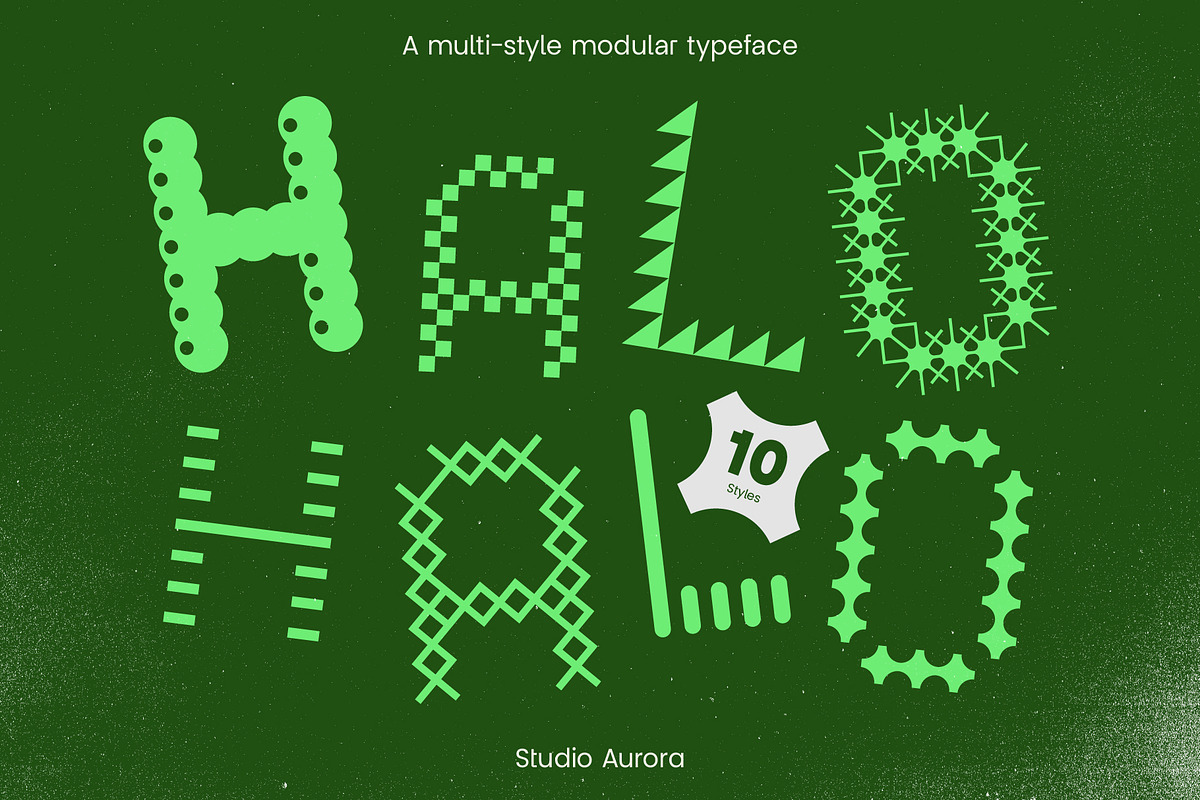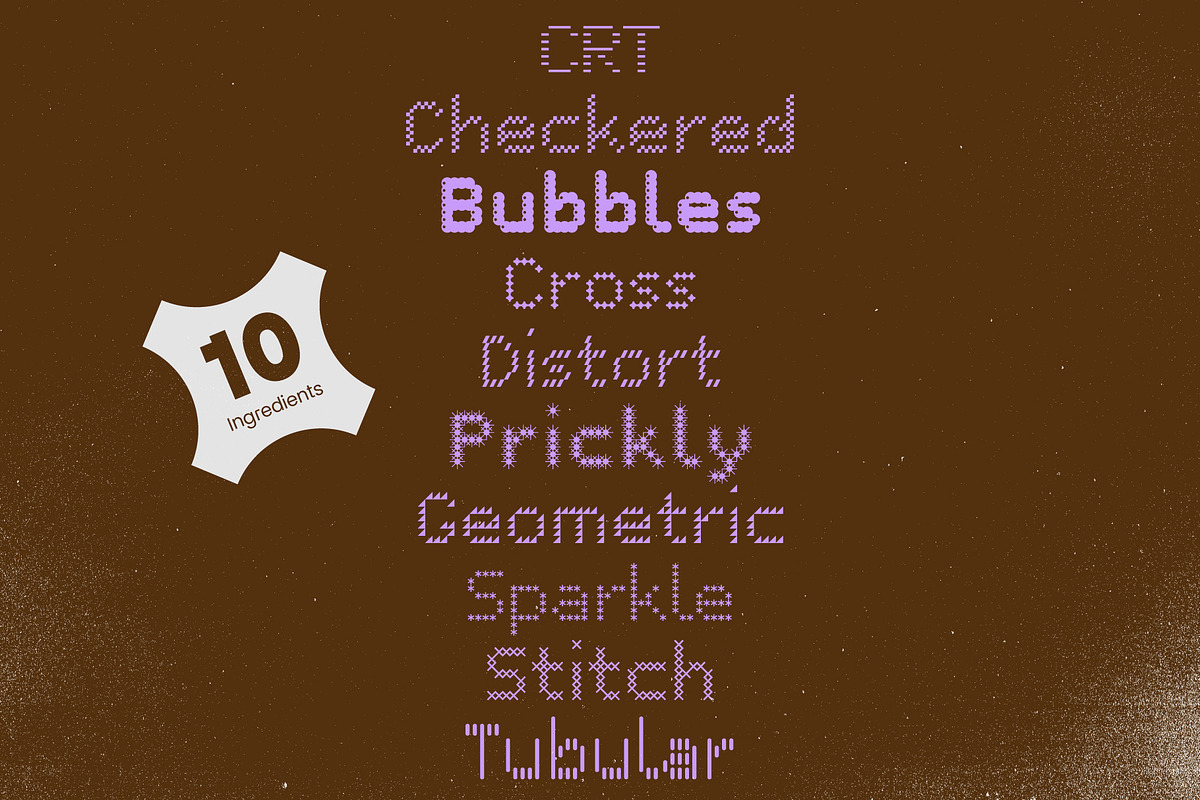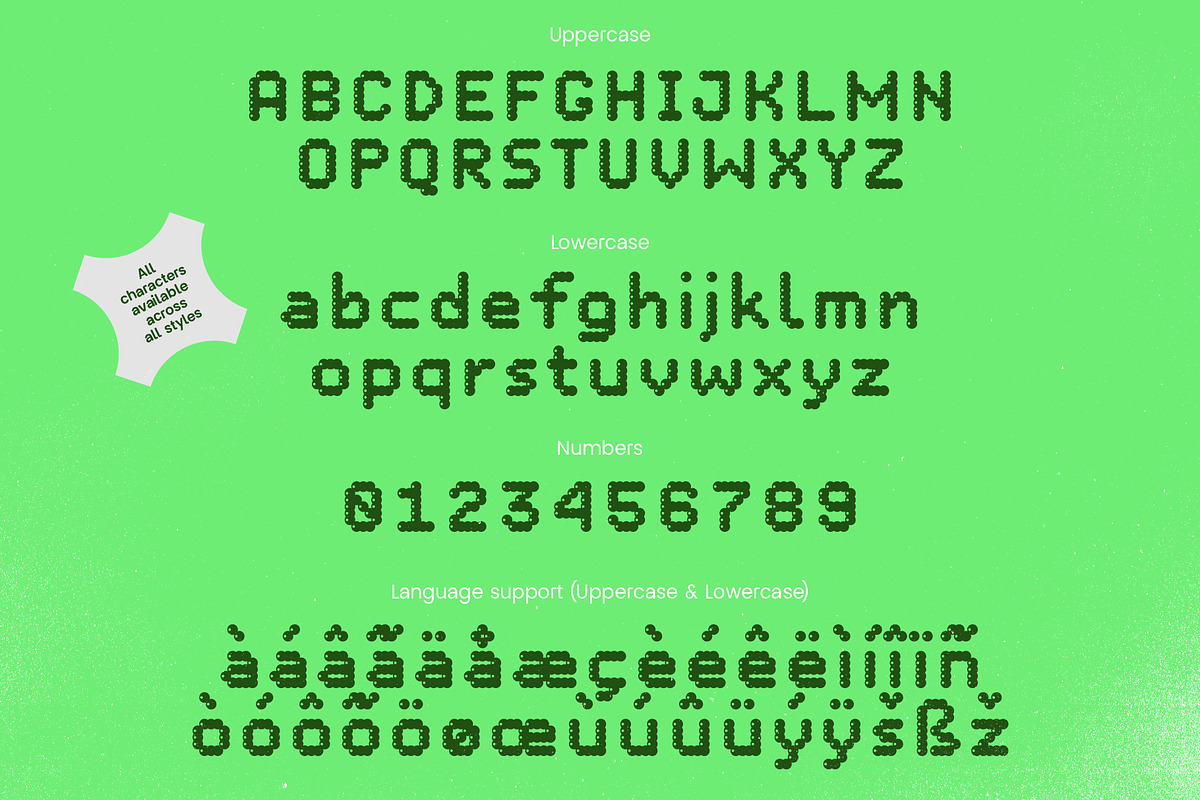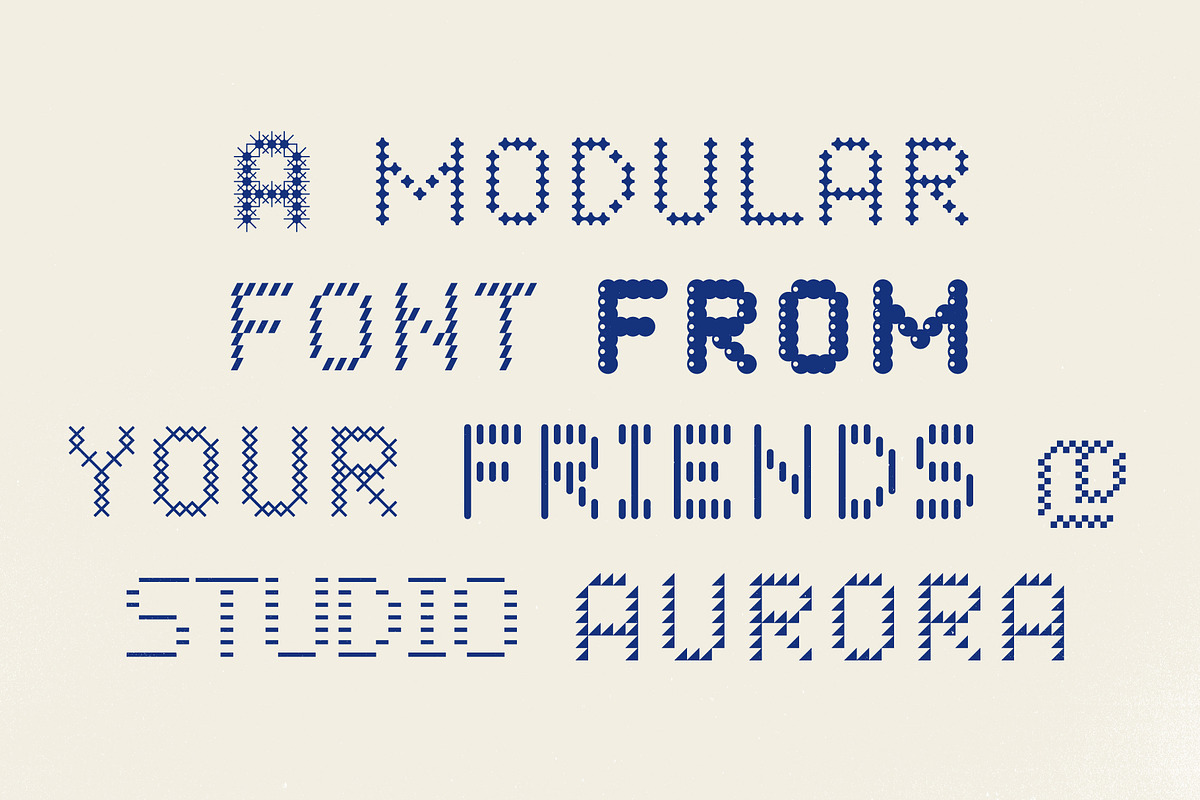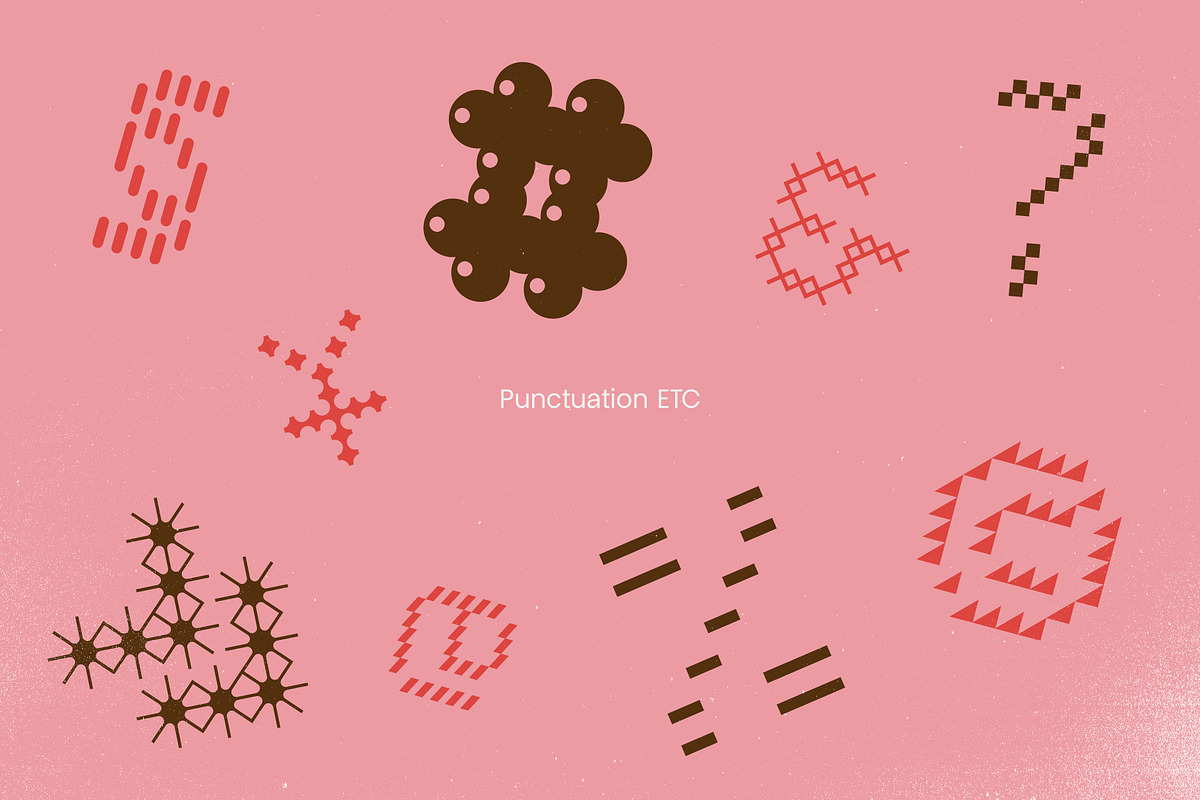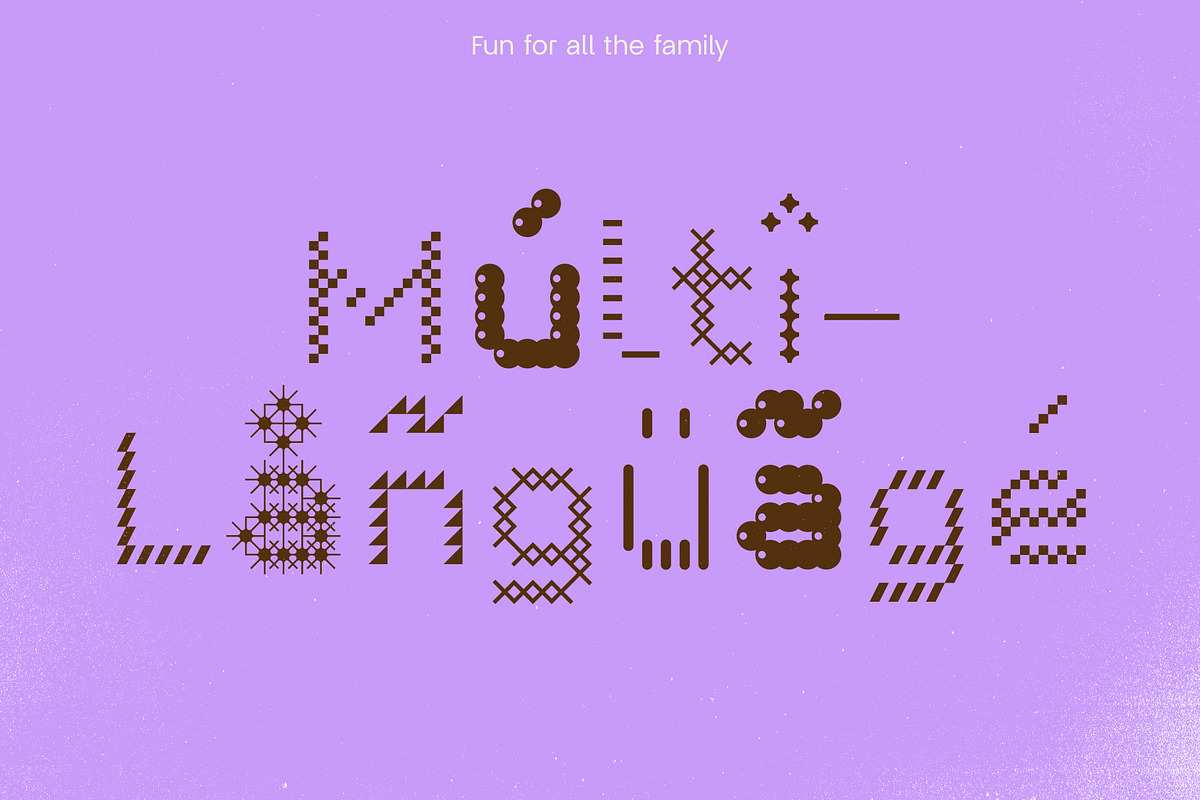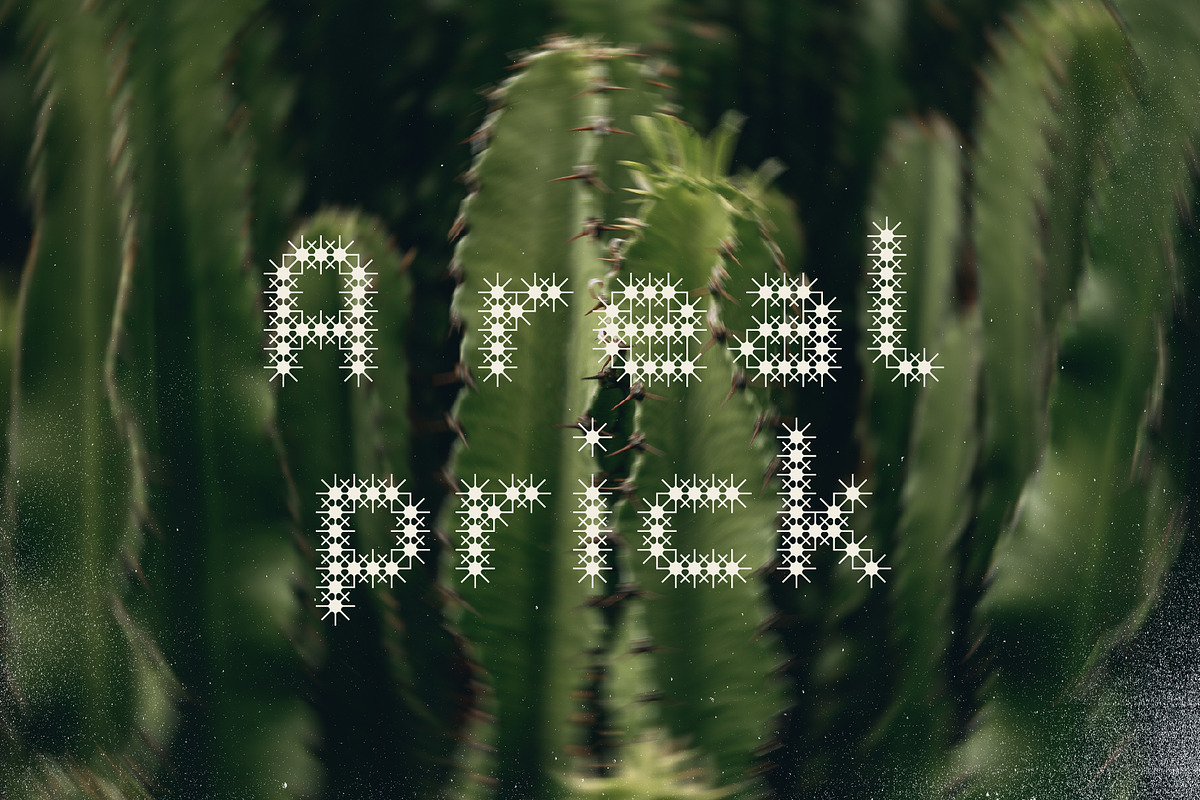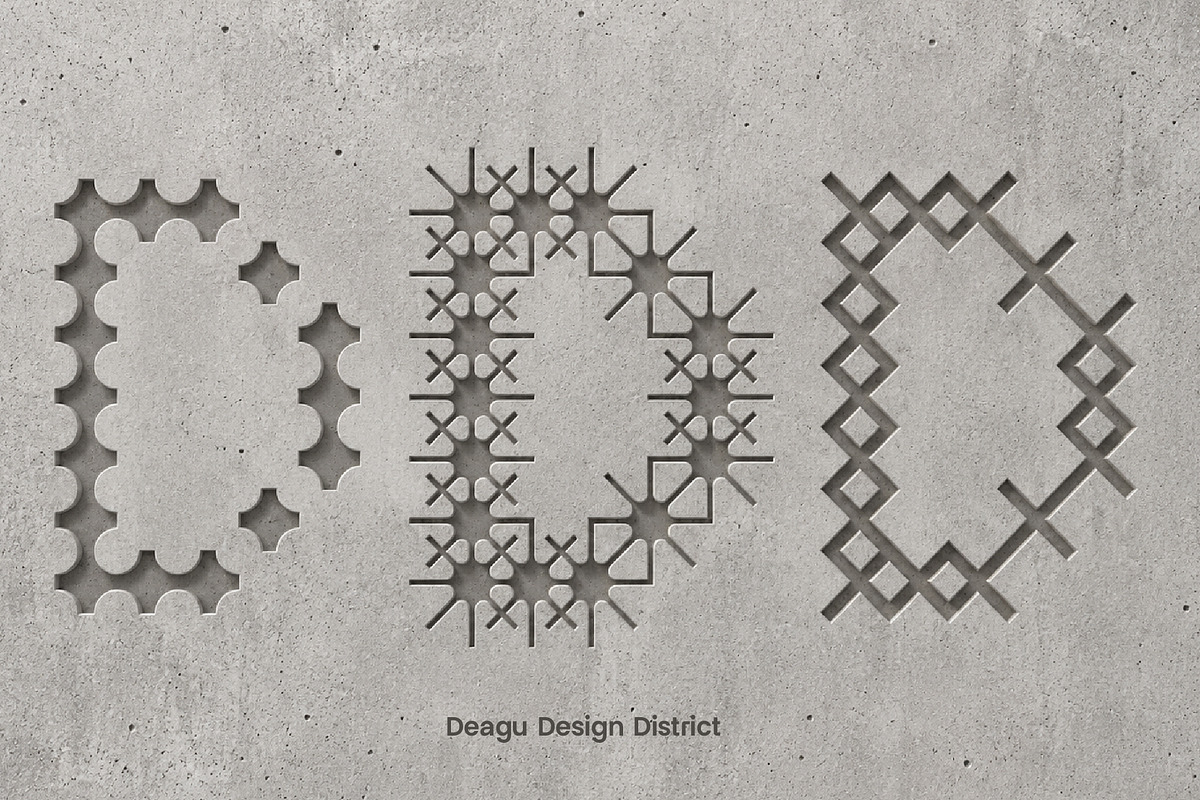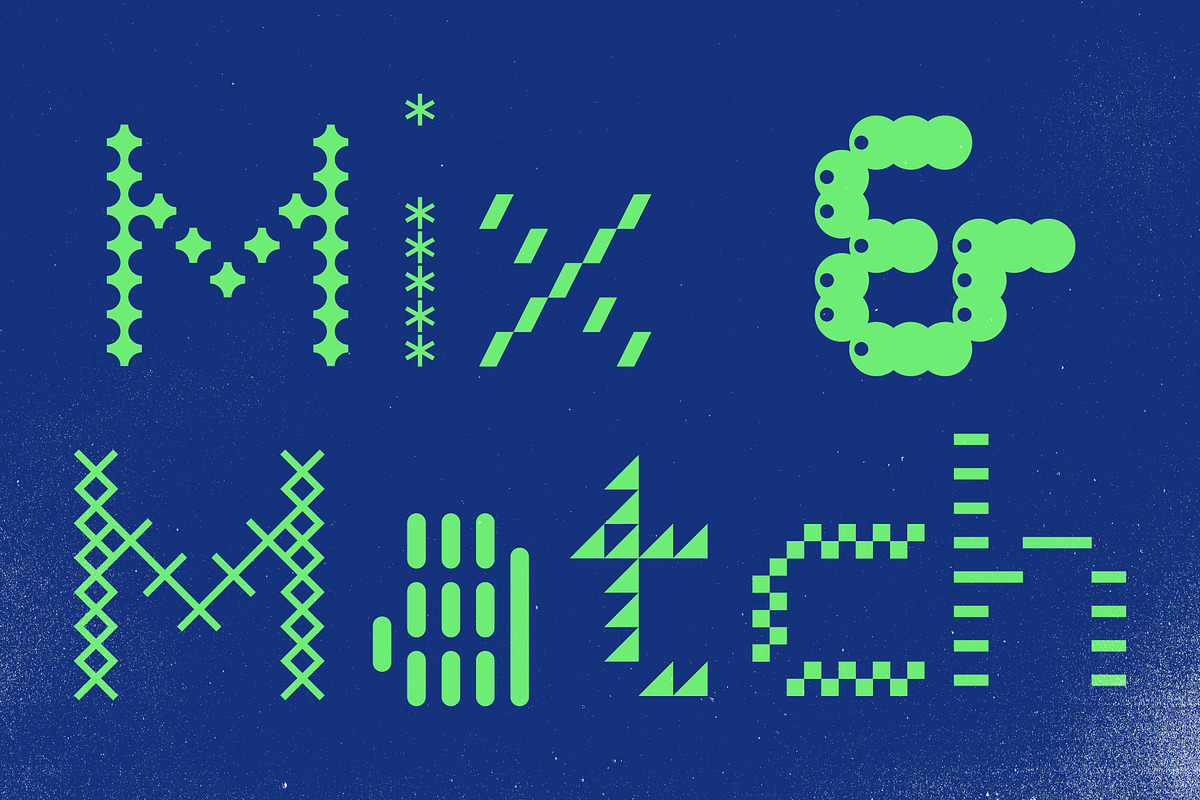
Halo Halo - Multi-Style Modular Font
Halo Halo is a multi-style modular font. It comes with 10 different styles to add variety and a unique pop to your designs. Mix and match for the most fun with this type!
Perfect for brands and designs that require a flexible and interchangeable display font system to work across cultural brands, posters and social media.
10 different unique styles
1800 glyphs!
Uppercase glyphs